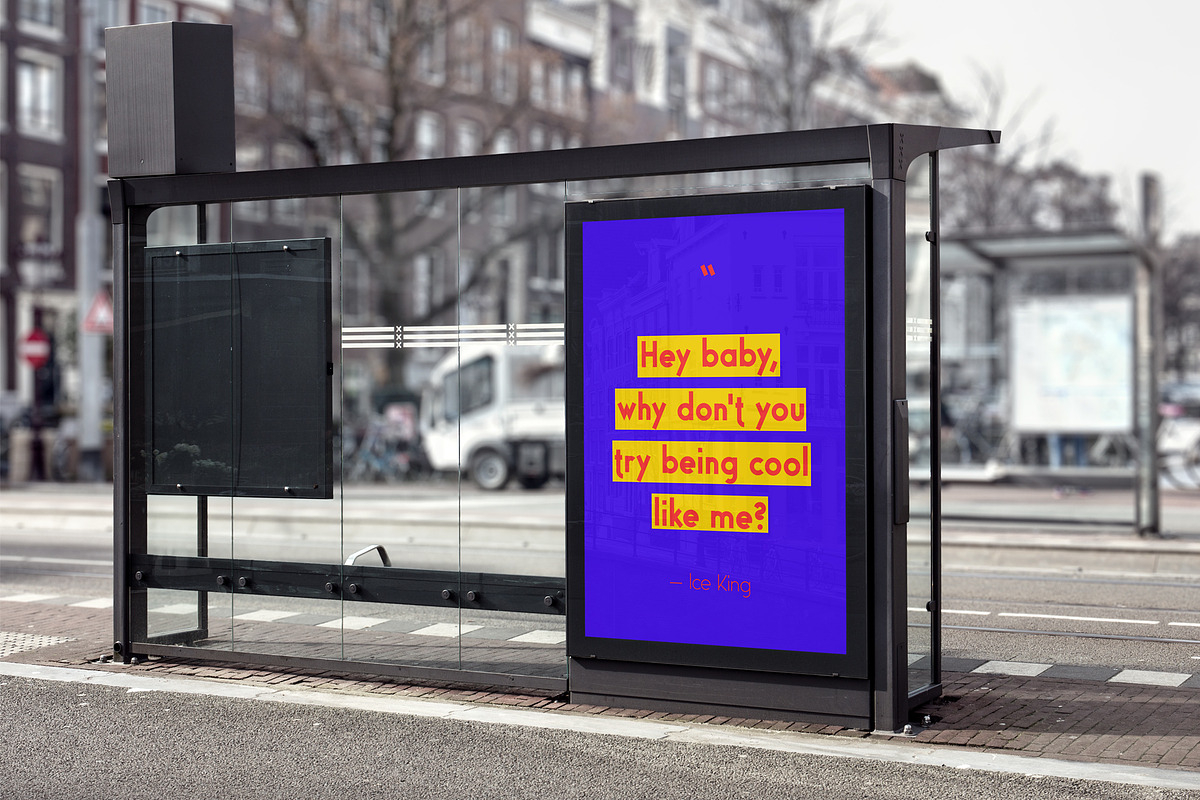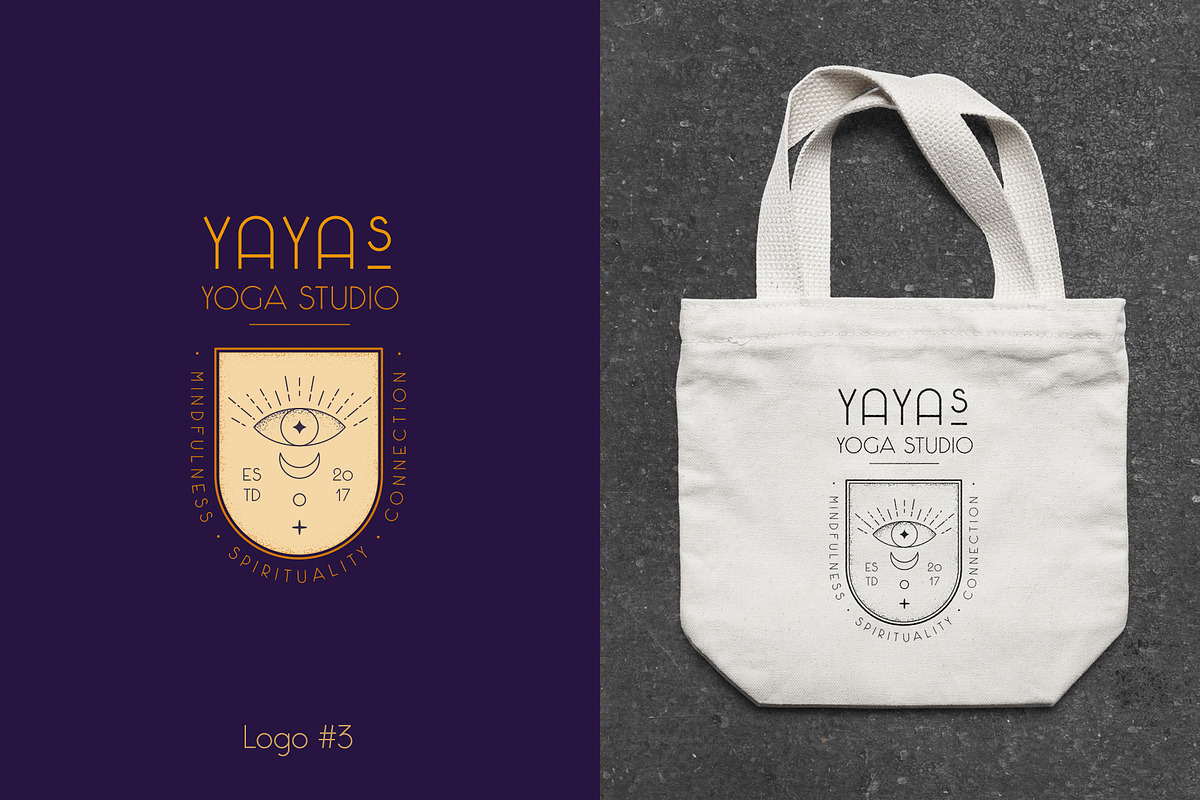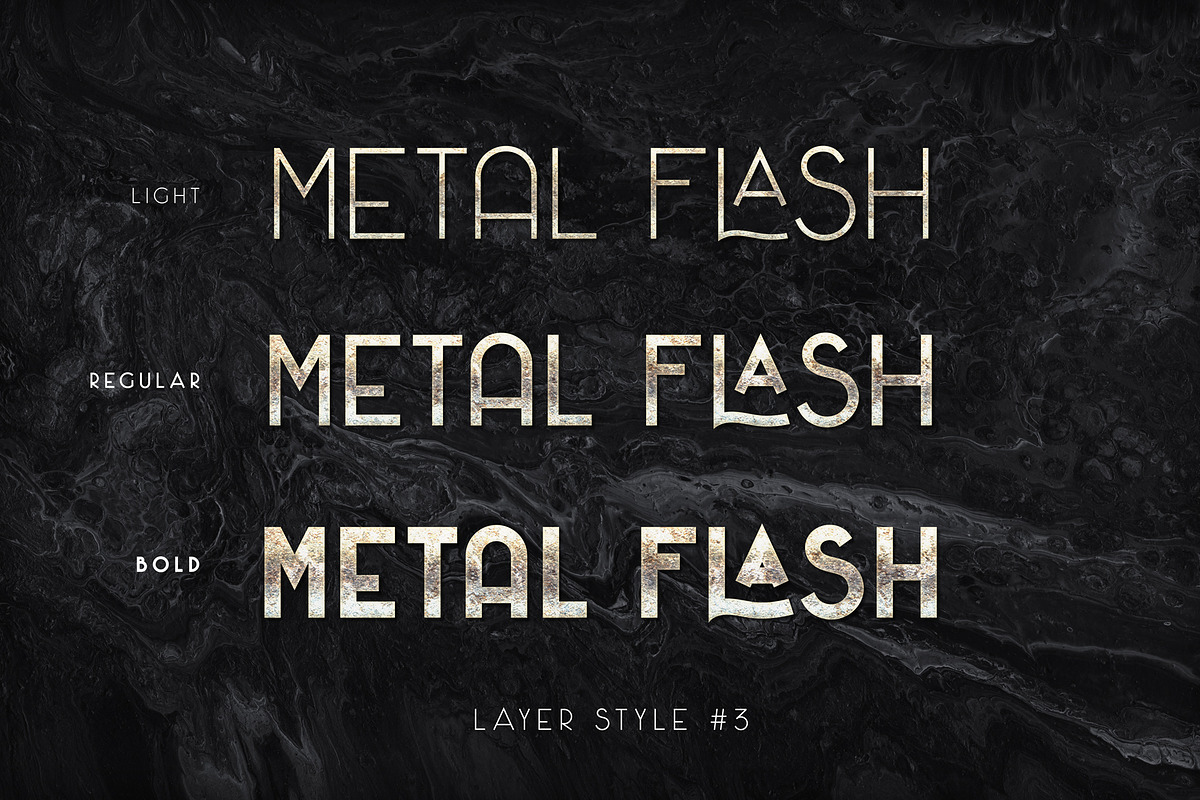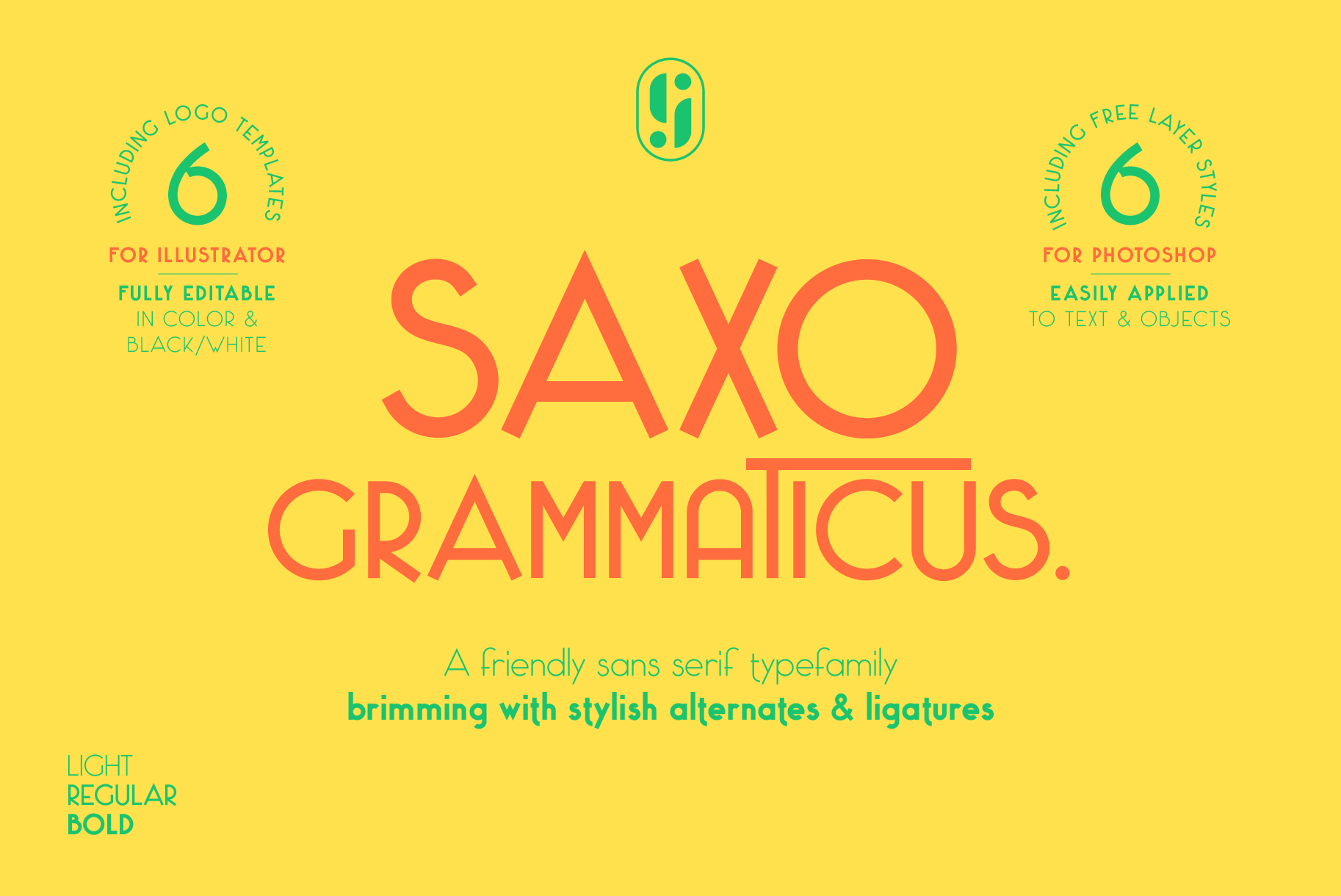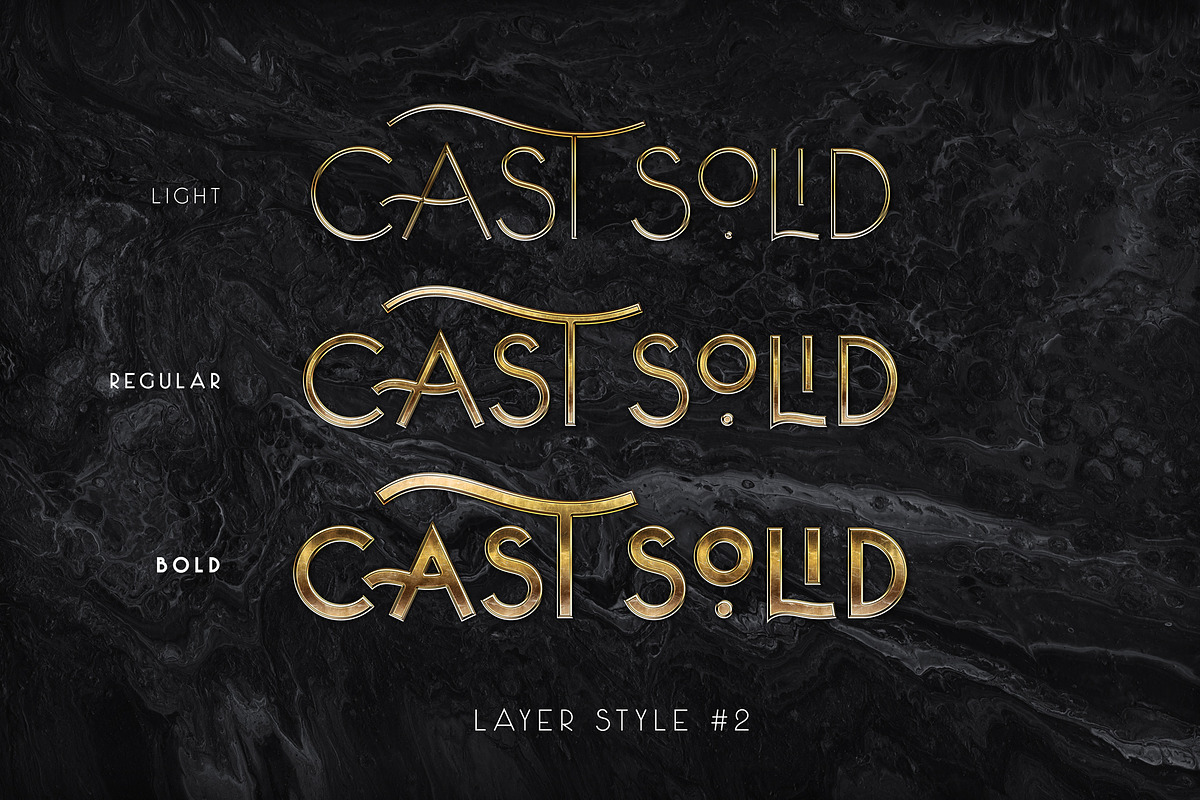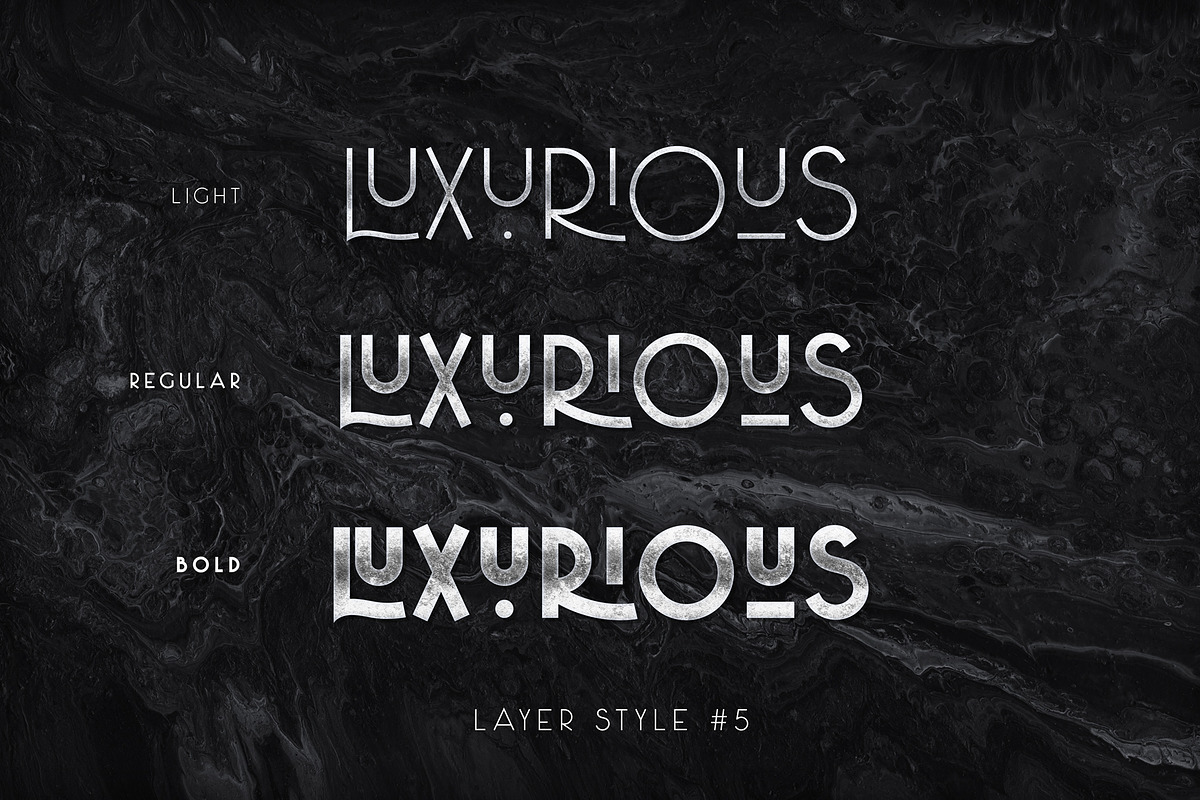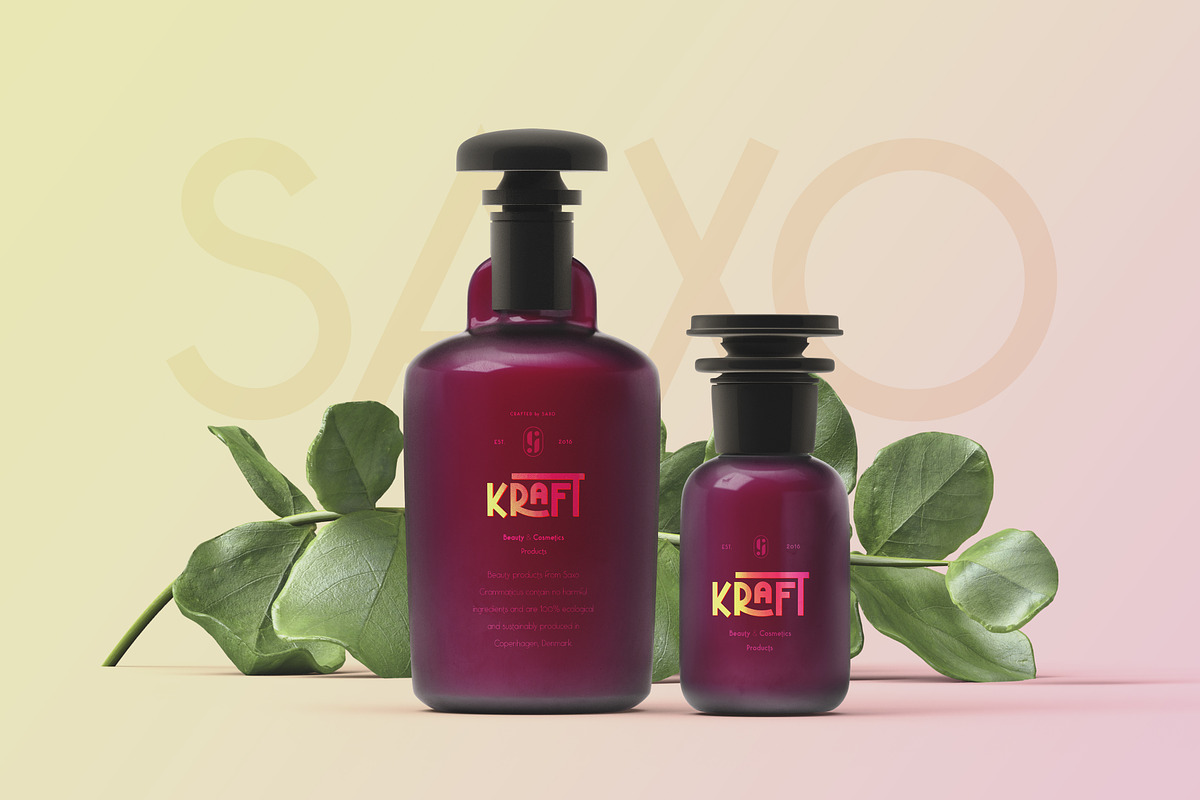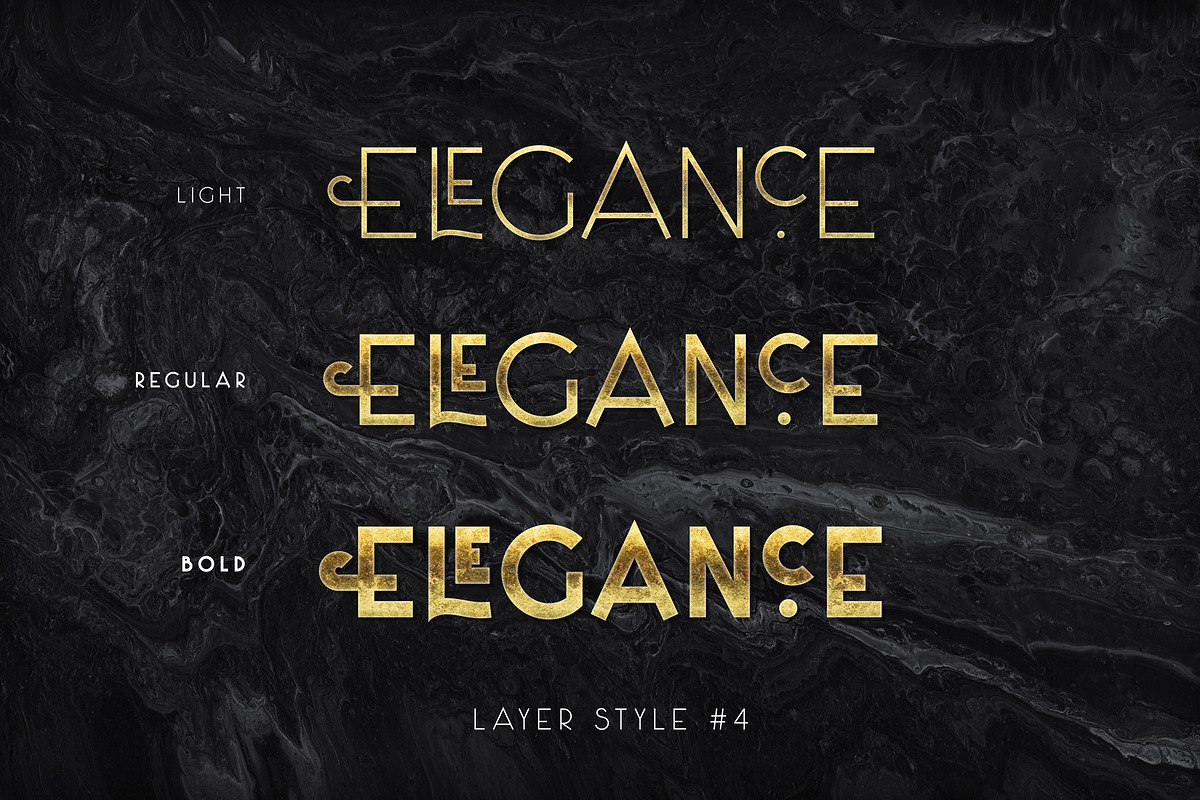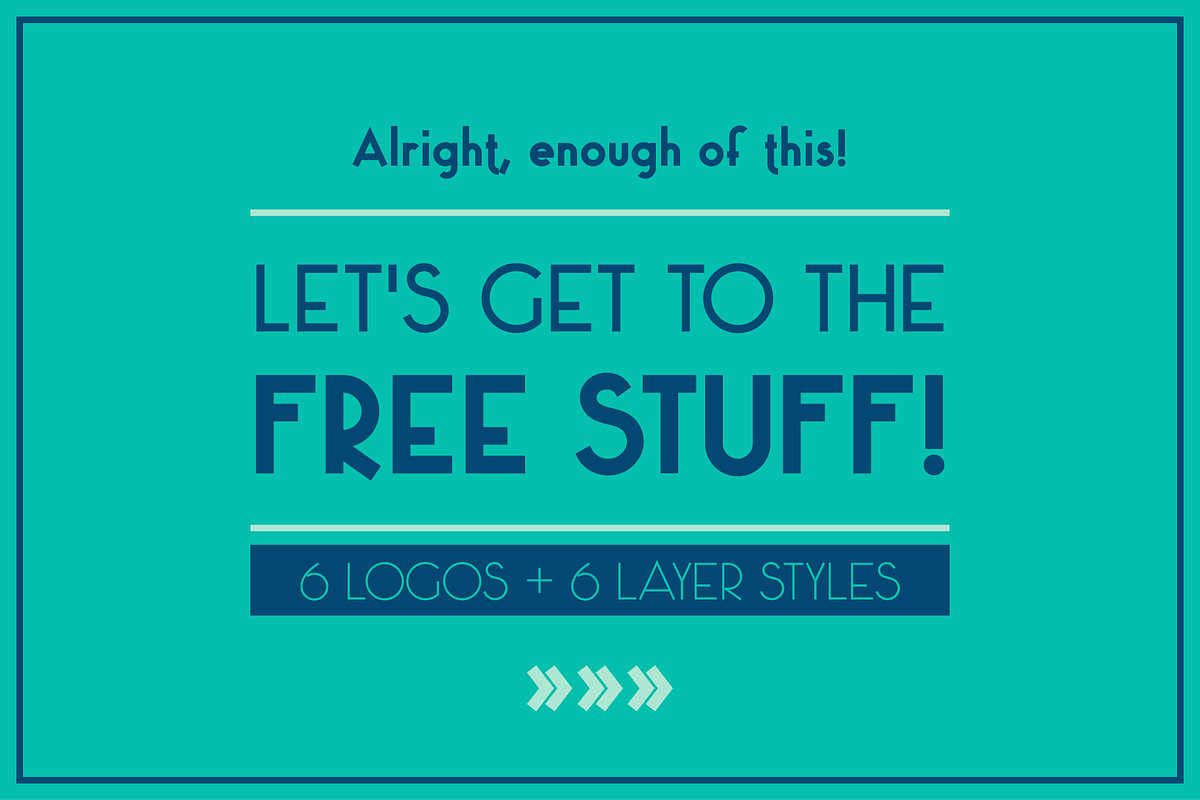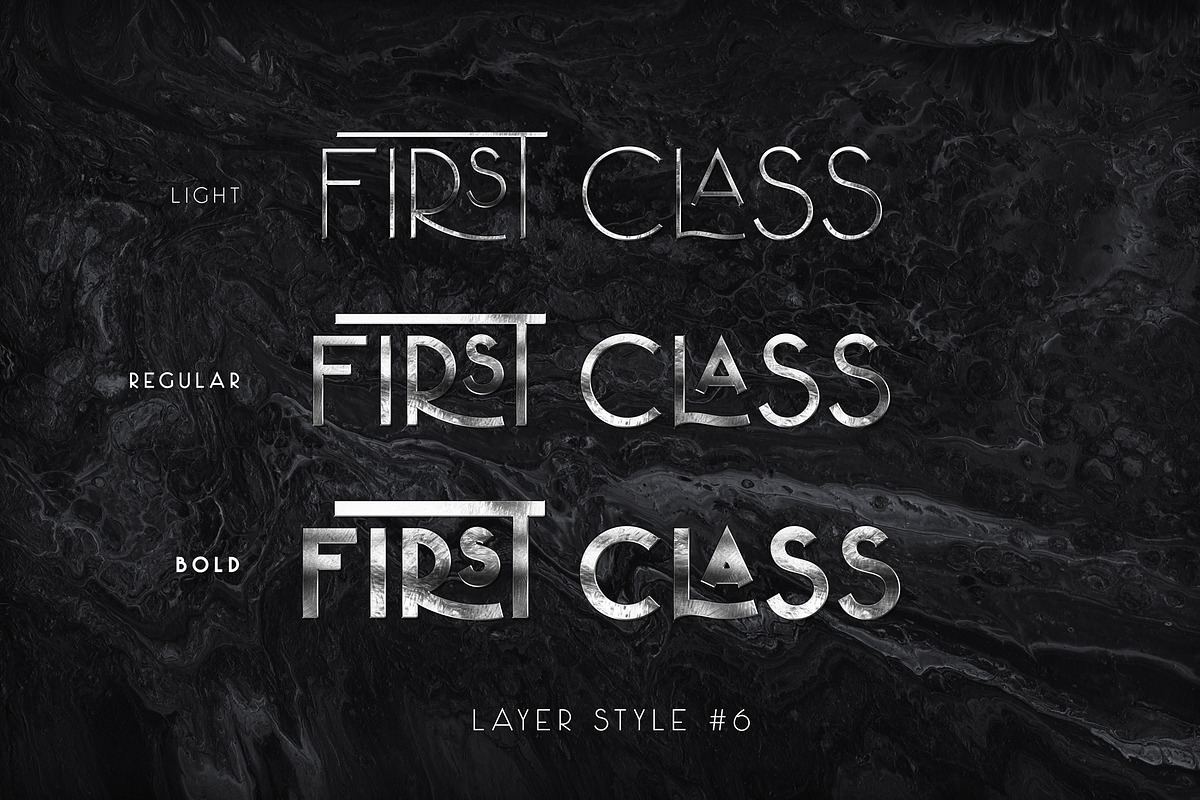
Saxo Grammaticus Font + Extras
A beautiful and friendly typefamily that works great with family themes, elegant & classy material and professional settings. It's so versatile you'll find yourself coming back to it over and over for your projects, and that's whether you're looking to create logos, quotes, poster designs, brochures, packaging, anything with big letters like headlines, wedding invitations, holiday cards, advertisements, signs and on and on and on...
There is a total of 107 ligatures and 76 alternates! That's plenty of options for any designer wanting to give those big letters a little extra wham bam!
- 3 weights: Light, Regular & Bold
- Character set A-Z
- Covers all major Western languages